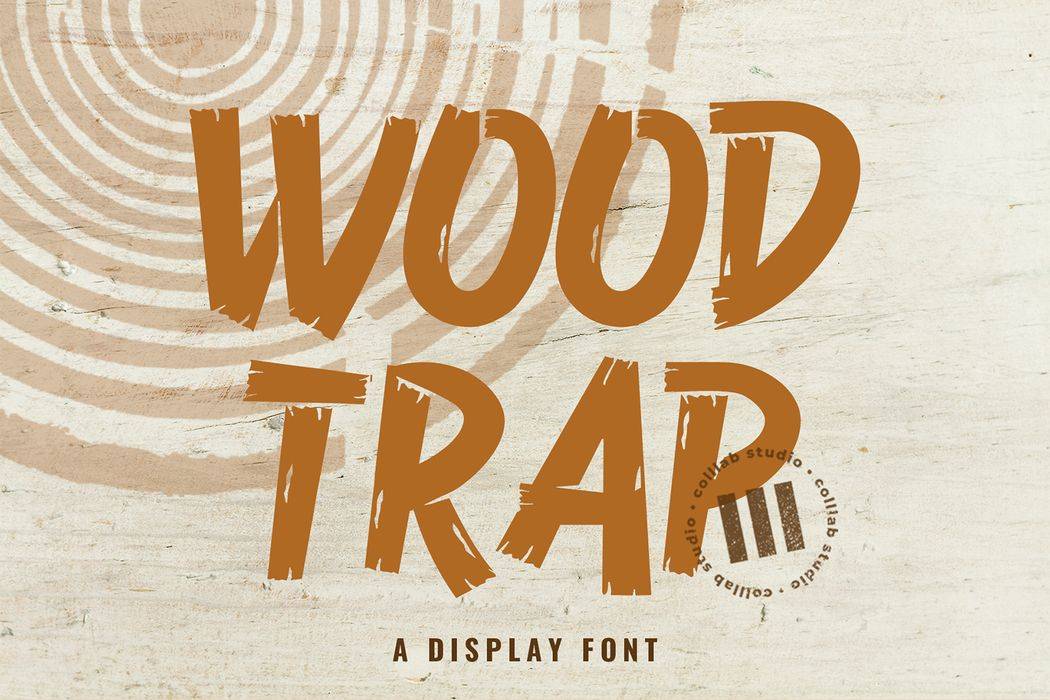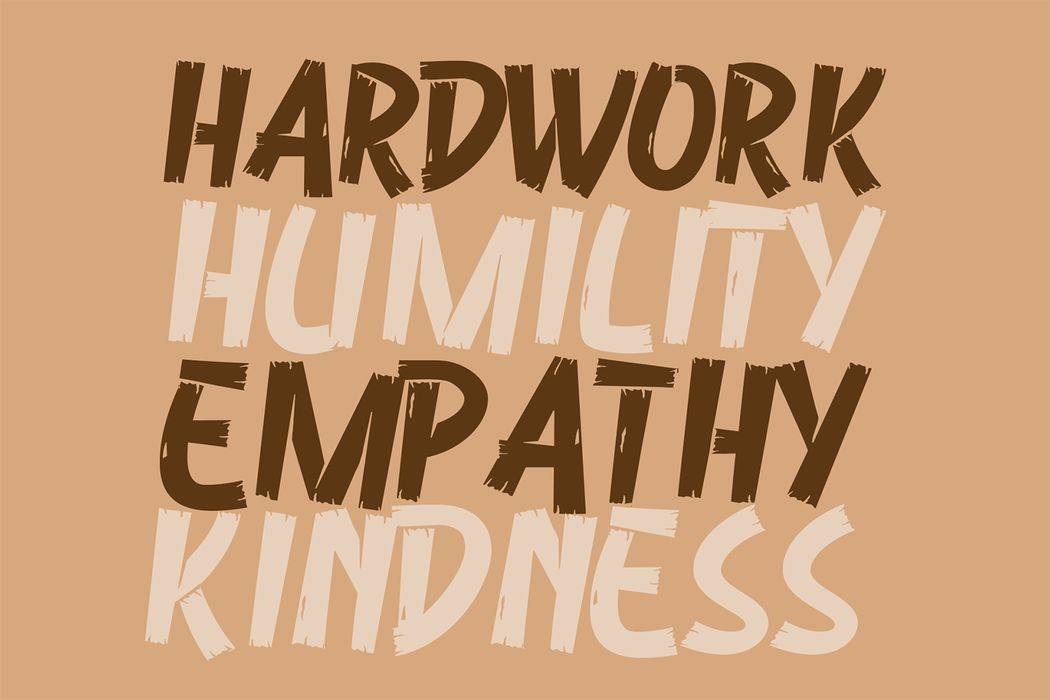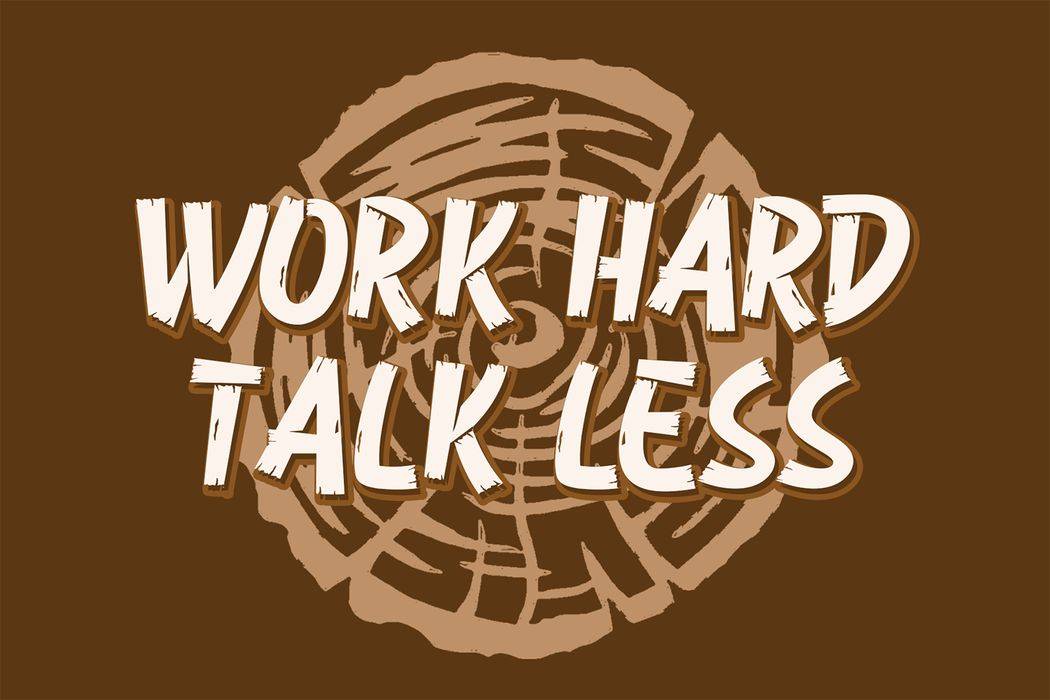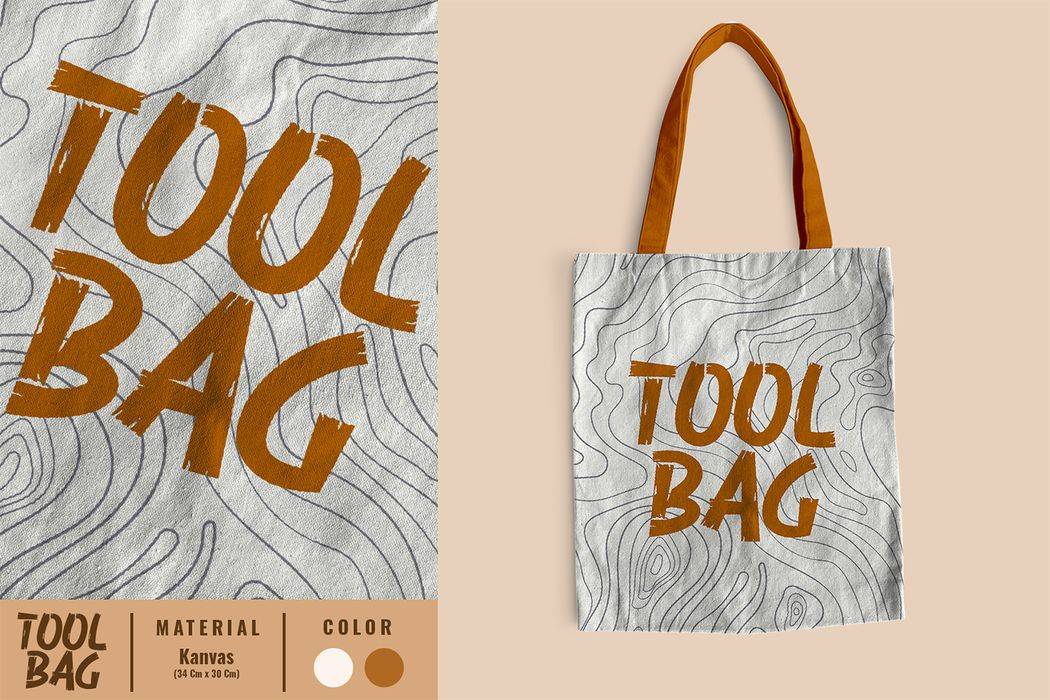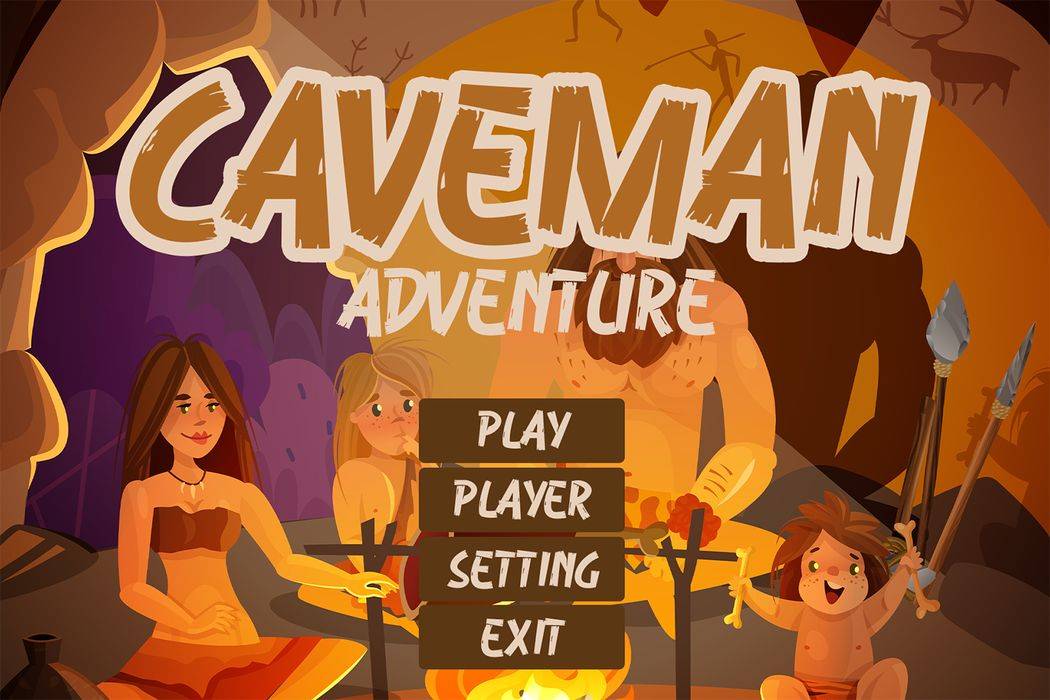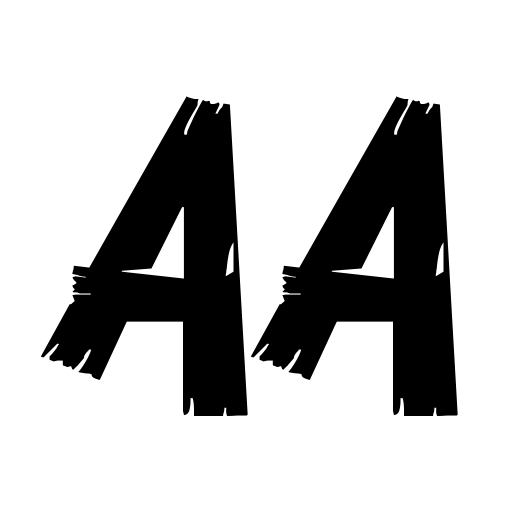
Wood Trap is a bold, all-caps display font with a rough, hand-painted texture that gives it a dynamic and edgy personality. Its irregular strokes and distressed details make it perfect for grabbing attention in posters, logos, and creative branding where a strong, energetic, and slightly rebellious vibe is desired. This font works best in headline or title use, adding a vibrant and artistic flair to designs needing a handcrafted, urban feel.
Wood Trap Font
About Wood Trap Font
| Font family | Wood Trap Font |
| Release date | 2020-08-24 |
| Designer | Colllab Studio |